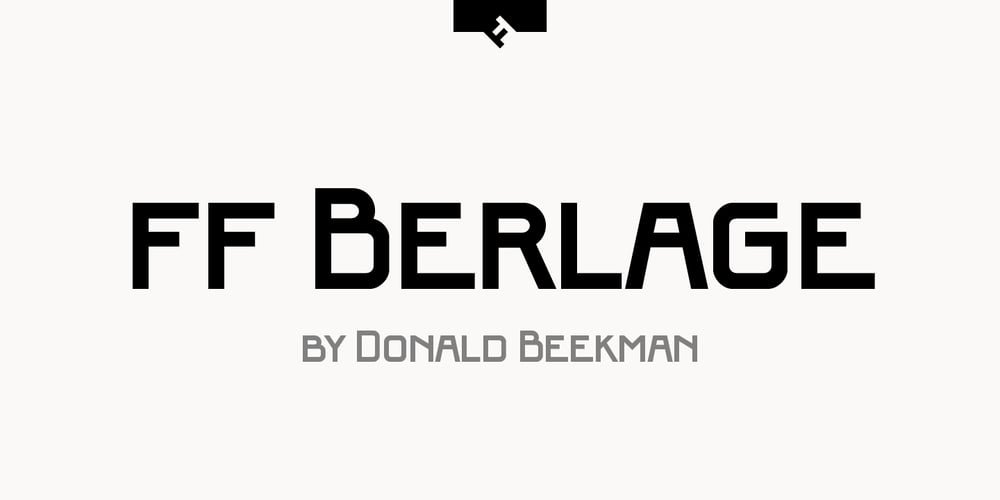
FF Berlage Beurs Font Family was designed by Donald Beekman and published by FontFont. FF Berlage Beurs contains 5 styles and family package options. FF Berlage started as a research project about the typography of the prominent Dutch architect Hendrik Pieter Berlage (1856 1935). Donald Beekman based the design on a great number of sources, but mainly lettering found in two of Berlage s most quintessential buildings, the Amsterdam Commodities Exchange building (called Beurs van Berlage), and the ANDB building for the Amsterdam diamond cutters union (called De Burcht). Berlage is considered the father of modern architecture in The Netherlands due to his revolutionary theories on architecture and design, that would greatly influence many Dutch architect groups, like the Amsterdam School and De Stijl.